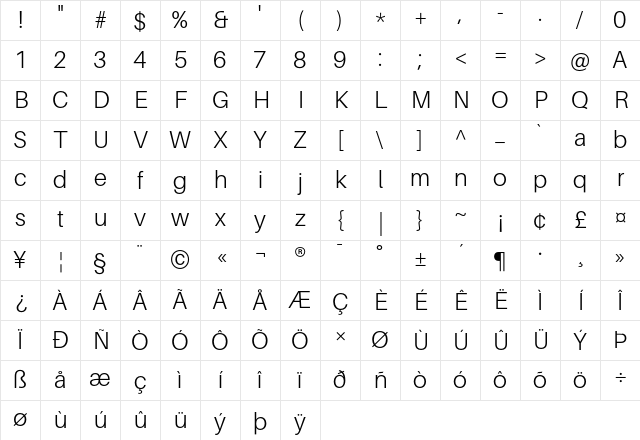
Aileron Light Regular
Foundry: Sora Sagano
Designer: Sora Sagano
Aileron Light Family
Design Context for Aileron Light
Aileron Light is a composed and adaptable typeface that performs quietly and consistently across a wide range of design contexts. Its slender proportions lend an understated elegance to any composition.
Who designed the Aileron Light Regular font?